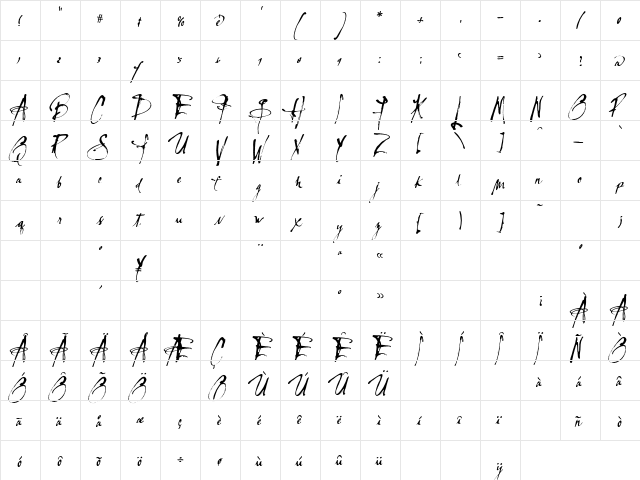
Lassigue DMato
Design Context for Lassigue Typeface
Lassigue is a composed and adaptable typeface that performs quietly and consistently across a wide range of design contexts.